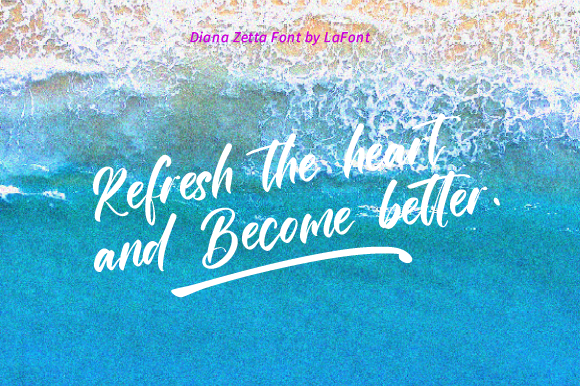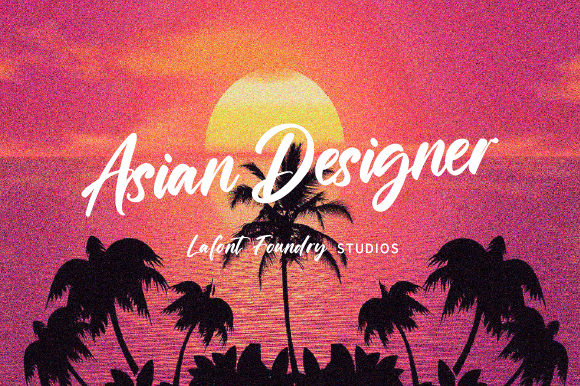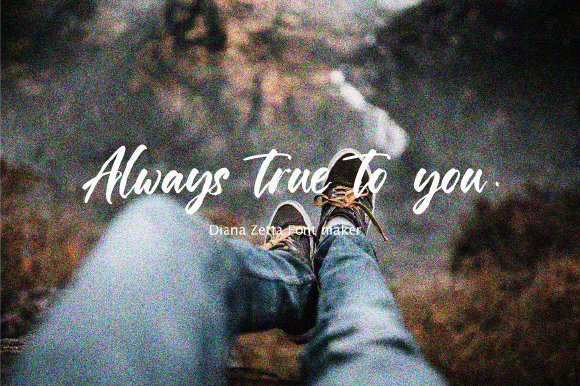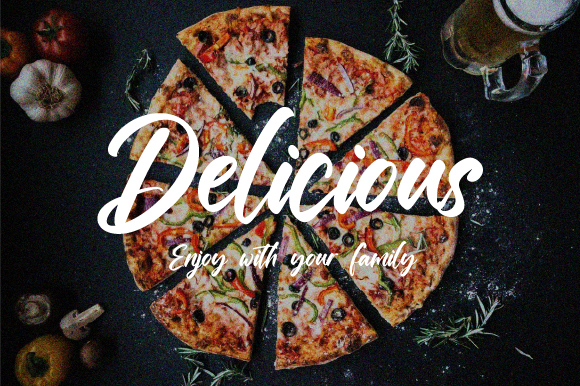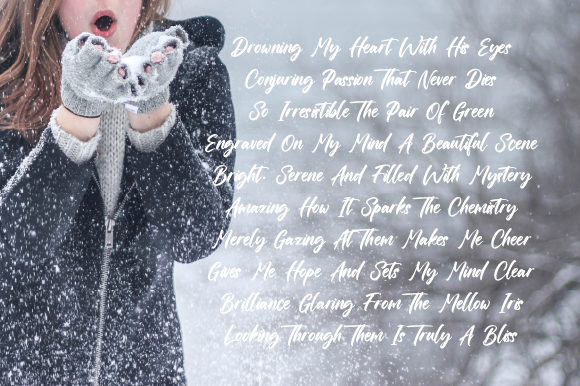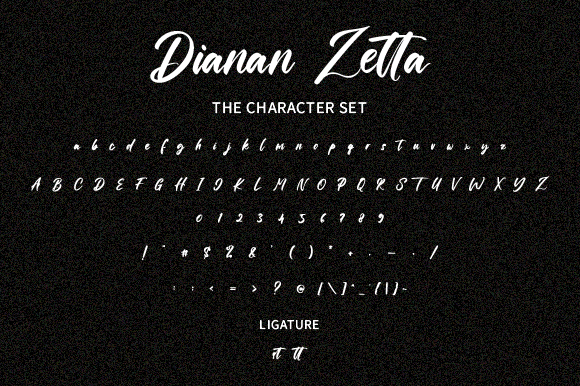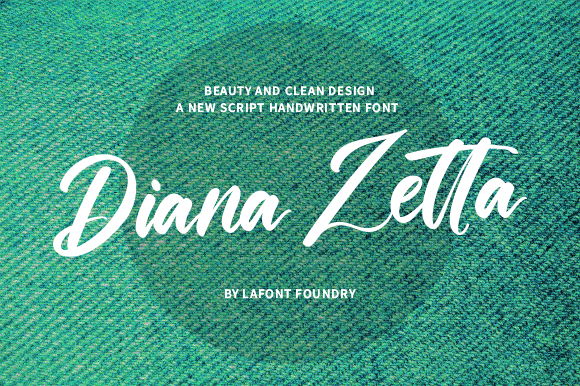
Diana Zetta Font: Elevate Your Design with Romantic Elegance
In the world of typography, few fonts capture the essence of romance and luxury as effortlessly as the Diana Zetta Font. This exquisite calligraphy typeface is designed to add a touch of sophistication and elegance to any design project, making it a must-have for designers and crafters seeking to infuse their work with a sense of high-end style.
The Charm of Diana Zetta
Diana Zetta is characterized by its unique, dancing script, where characters seemingly float along the baseline, creating a fluid and dynamic visual effect. This distinctive feature not only sets it apart from more traditional typefaces but also lends a sense of movement and grace to any design it is applied to. Whether you’re working on a branding project, crafting beautiful wedding invitations, or designing elegant packaging, Diana Zetta promises to add that extra spark of luxury and sophistication.
PUA Encoding for Ease of Use
One of the standout features of the Diana Zetta Font is its PUA (Private Use Area) encoding. This means that accessing the font’s extensive range of glyphs and ligatures is remarkably straightforward. Designers can easily incorporate these special characters into their work without the need for complicated editing or manipulation. This feature is particularly beneficial for those who want to focus on the creative aspect of their projects without getting bogged down in technical complexities.
Applications of Diana Zetta
The versatility of the Diana Zetta Font makes it suitable for a wide array of design applications. Here are a few examples of how this beautiful typeface can be utilized:
- Branding and Logos: Create a lasting impression with a logo that exudes elegance and sophistication.
- Wedding and Event Stationery: Add a romantic touch to wedding invitations, save the dates, and other event-related materials.
- Packaging: Elevate product packaging with a luxurious feel that stands out on store shelves.
- Digital Media: Use Diana Zetta in digital marketing materials, such as social media graphics and email newsletters, to convey a sense of luxury.
Why Choose Diana Zetta?
With so many typefaces available to designers today, what makes Diana Zetta stand out? The answer lies in its perfect blend of romance, elegance, and usability. Here are a few reasons why Diana Zetta should be your go-to font for projects that demand a touch of luxury:
- Unique Aesthetic: Its dancing characters offer a fresh alternative to more conventional script fonts.
- High Readability: Despite its elegant and cursive nature, Diana Zetta maintains a high level of readability, making it suitable for both headings and body text.
- Support for Multiple Languages: With its extensive character set, Diana Zetta supports multiple languages, making it a versatile choice for global brands.
Diana Zetta Font is more than just a typeface; it’s a design statement. Its romantic and sweet calligraphy style, combined with the practical benefits of PUA encoding, makes it an invaluable asset for designers and crafters aiming to create luxurious and captivating designs. Whether you’re looking to add a touch of elegance to branding, stationery, packaging, or digital media, Diana Zetta is the perfect choice. Elevate your designs with the sophisticated charm of Diana Zetta and make your projects stand out with a touch of luxury.